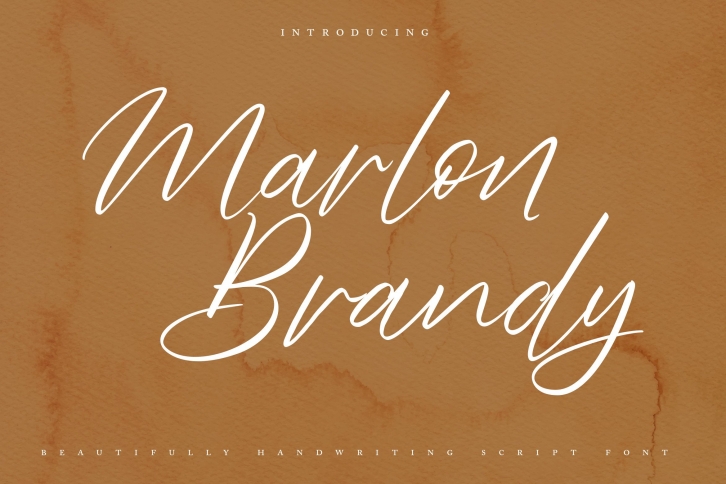
Marlon Brendy is a beautiful handwritten font. It looks lovely on wedding invitations, thank you cards, quotes, greeting cards, logos, business cards and every other design which needs a customized touch.